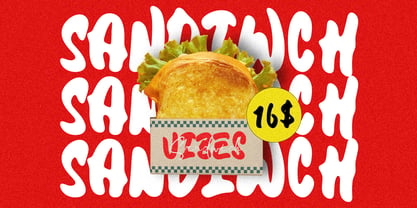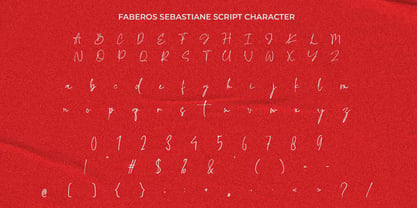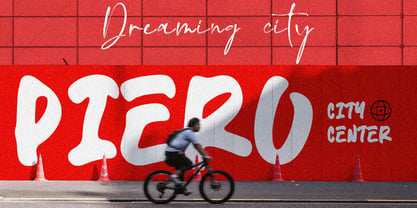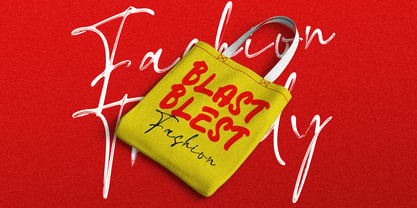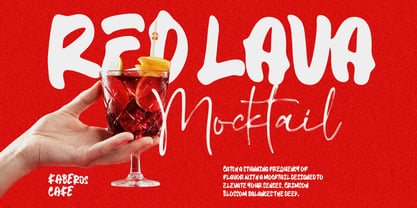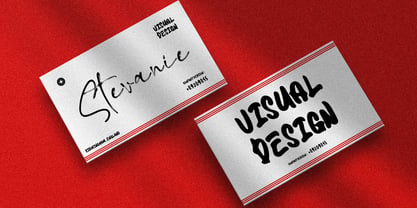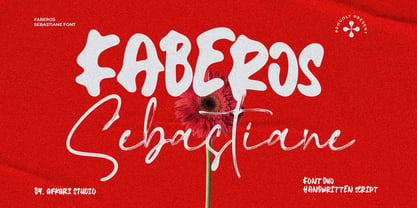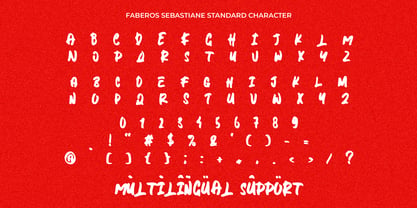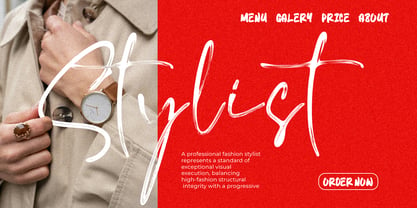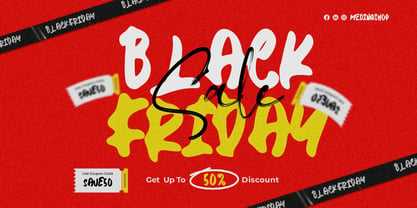
Faberos Sebastine
The Faberos Sebastine Font Family was designed by Musthafa Kamal Emje and published by Afkari Studio. Faberos Sebastine contains 2 styles and family package options. More about this family
Faberos Sebastian is a beautiful and versatile font duo that combines the charm of a natural handwritten font with the elegance of a flowing script typeface. Designed to bring authenticity, sophistication, and personality to your creative projects, this font duo offers the perfect balance between casual handwritten expression and luxurious script styling.
Created for designers, entrepreneurs, content creators, and branding specialists, Faberos Sebastian allows you to build stunning typography compositions with ease. The handwritten font delivers a relaxed and modern feel, while the script font adds graceful movement and timeless elegance, making them a perfect pairing for premium branding and creative design work.
Whether you're designing logos, wedding invitations, social media content, packaging, product labels, fashion branding, greeting cards, or editorial layouts, Faberos Sebastian provides the flexibility to create unique and memorable visual identities. The natural strokes and handcrafted appearance help your designs feel more personal, authentic, and engaging.
The combination of handwritten and script styles makes Faberos Sebastian ideal for projects that require both readability and decorative beauty. Use them together for striking typography contrasts or individually to achieve a distinctive visual voice that captures attention and communicates style.
Highlighted Features:
- Two font styles: Handwritten & script
- Natural Handcrafted Appearance
- Uppercase, Lowercase, Number, and Punctuation
- Special alternates and ligatures
- Mültîlíñgúãl Sùppört for; ä ö ü Ä Ö Ü ß ¿ ¡
Faberos Sebastian is more than just a font duo—it is a creative toolkit designed to help your projects feel elegant, personal, and unforgettable. Whether you're building a luxury brand, creating wedding stationery, or designing beautiful social media content, Faberos Sebastian gives you the flexibility and style needed to bring your vision to life.